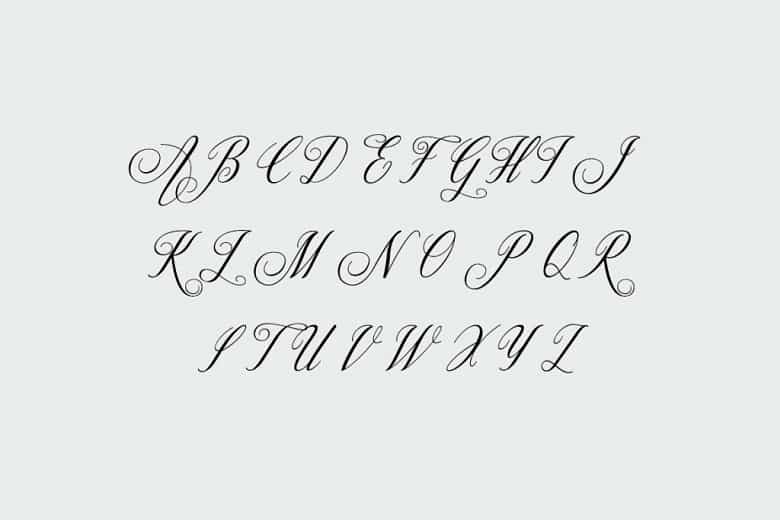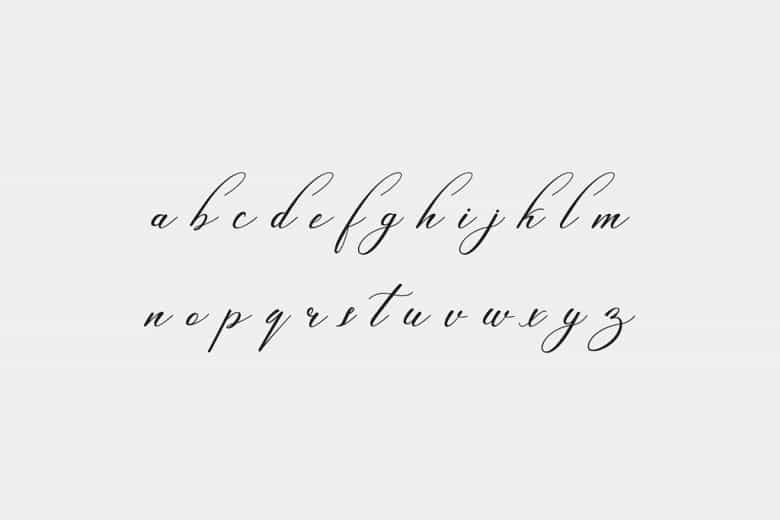
Mandalina is a classical script calligraphy font feels beautiful classy, elegant, and stylish. Mandalina will be perfect for many projects: book, magazines, Logo, branding, photography, quotes, blog header, poster, advertisements, etc.